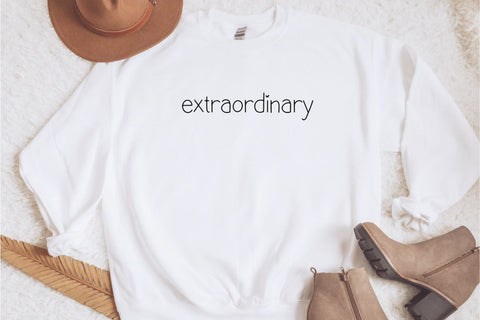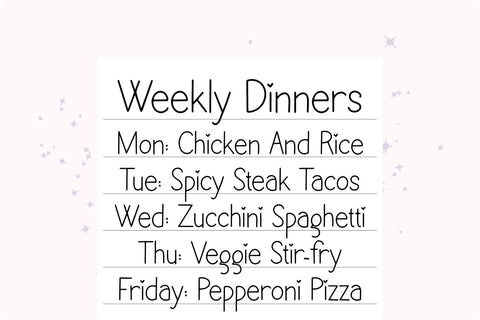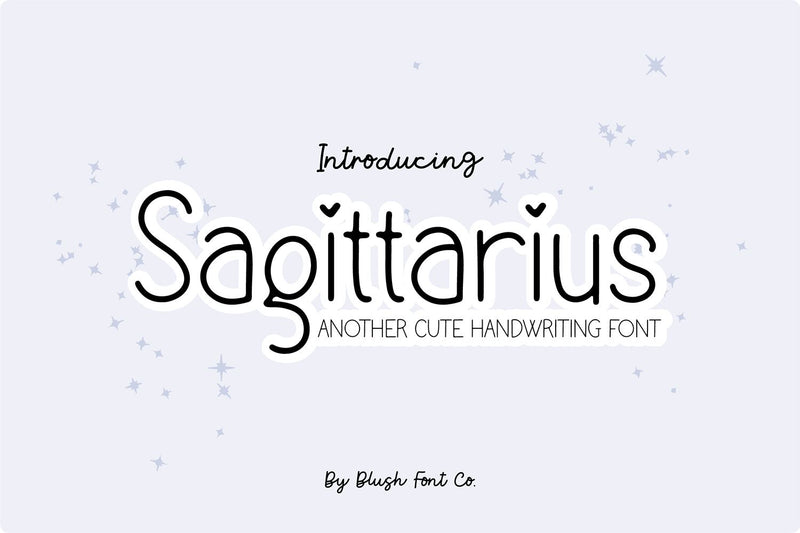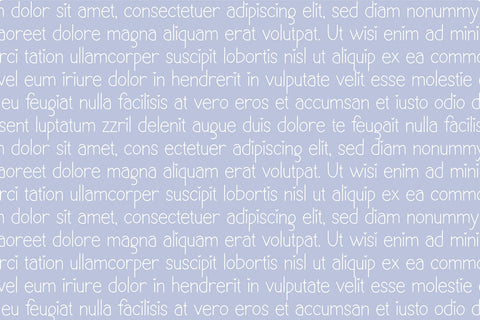
Sagittarius Cute Handwriting Font
"Sagittarius" handwriting font.
Sagittarius is a simple and cute handwriting font that is perfect for social media or goodnotes or digital planning. Use it for branding, crafts for decor, invitations, and more! This font includes upper and lowercase glyphs, numbers, basic punctuation marks.